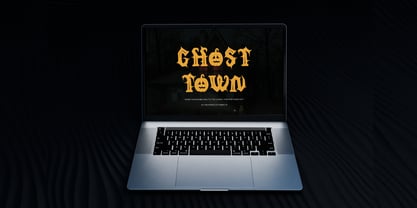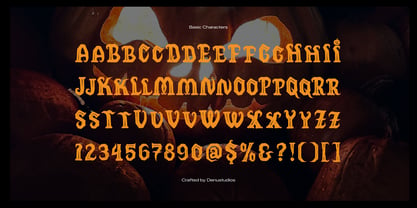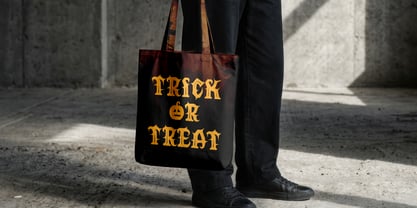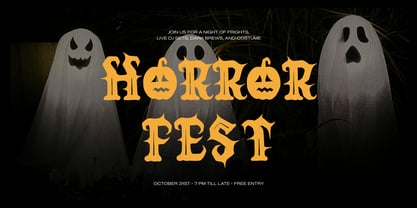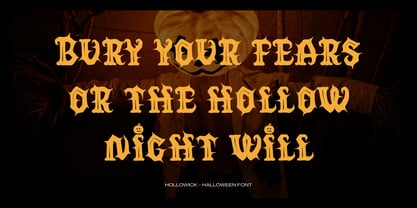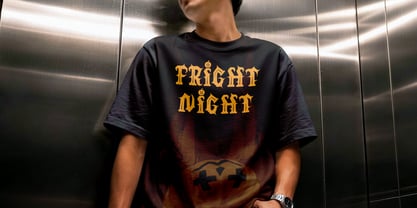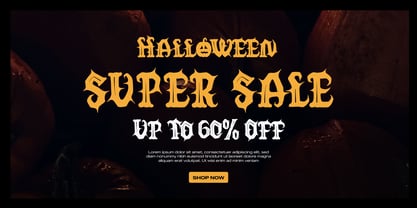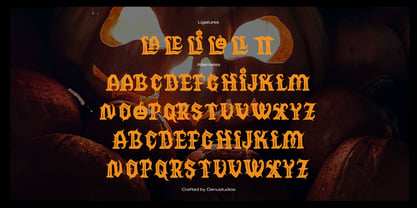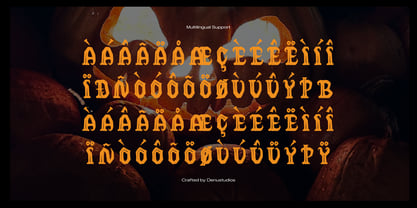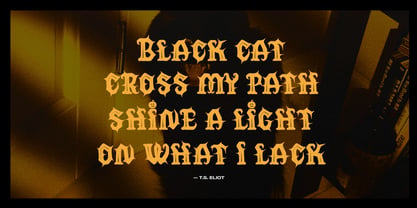
Hollowick
by Denustudio
The Hollowick Font Family was designed by Dede Nugraha and published by Denustudio. Hollowick contains 1 styles. More about this family
Hollowick | Halloween Font, from Denustudios, suitable for any projects such as: logos, branding projects, homeware designs, product packaging, mugs, quotes, posters, shopping bags, t-shirts, book covers, name card, invitation cards, greeting cards, label, photography, watermark, special events, and all your other lovely projects that need Halloween Font a taste.